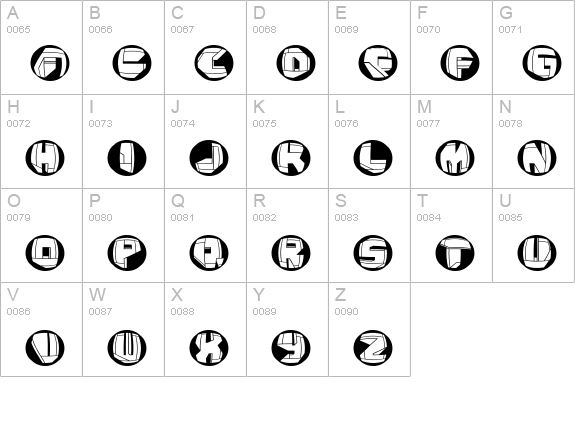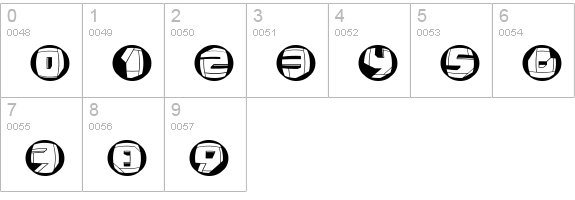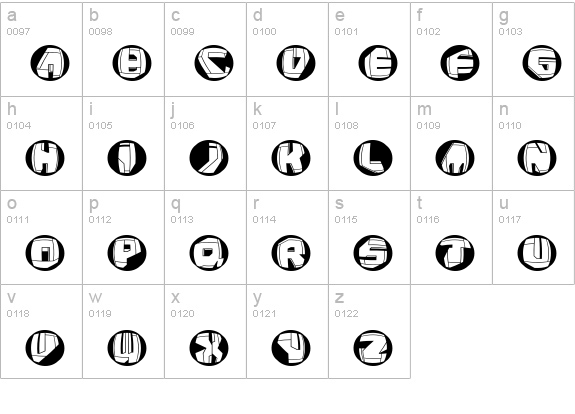
NeoPanButtons Font Details
NeoPanButtons is a modern and unique font that effortlessly combines sleek lines with a playful twist. Designed with versatility in mind, this typeface is perfect for a wide range of creative projects, from branding and advertising to social media graphics and website designs. With its bold and eye-catching letterforms, NeoPanButtons adds a touch of personality and style to any text. Its clean and sharp edges give it a contemporary and polished look, making it ideal for both digital and print media. One of the standout features of NeoPanButtons is its extensive character set. It includes a wide range of special characters, punctuation marks, and symbols, allowing you to fully express your creativity and add a touch of flair to your designs. What makes NeoPanButtons even more appealing is that it is free to download at FontsMarket.com. This means that you can enjoy the beauty and versatility of this font without any cost. Whether you are a professional designer or a hobbyist, NeoPanButtons is readily available for you to enhance your projects and make them truly stand out. So, if you are looking for a font that combines elegance with a touch of playfulness, NeoPanButtons is the perfect choice. Download it for free at FontsMarket.com and let your creativity soar.